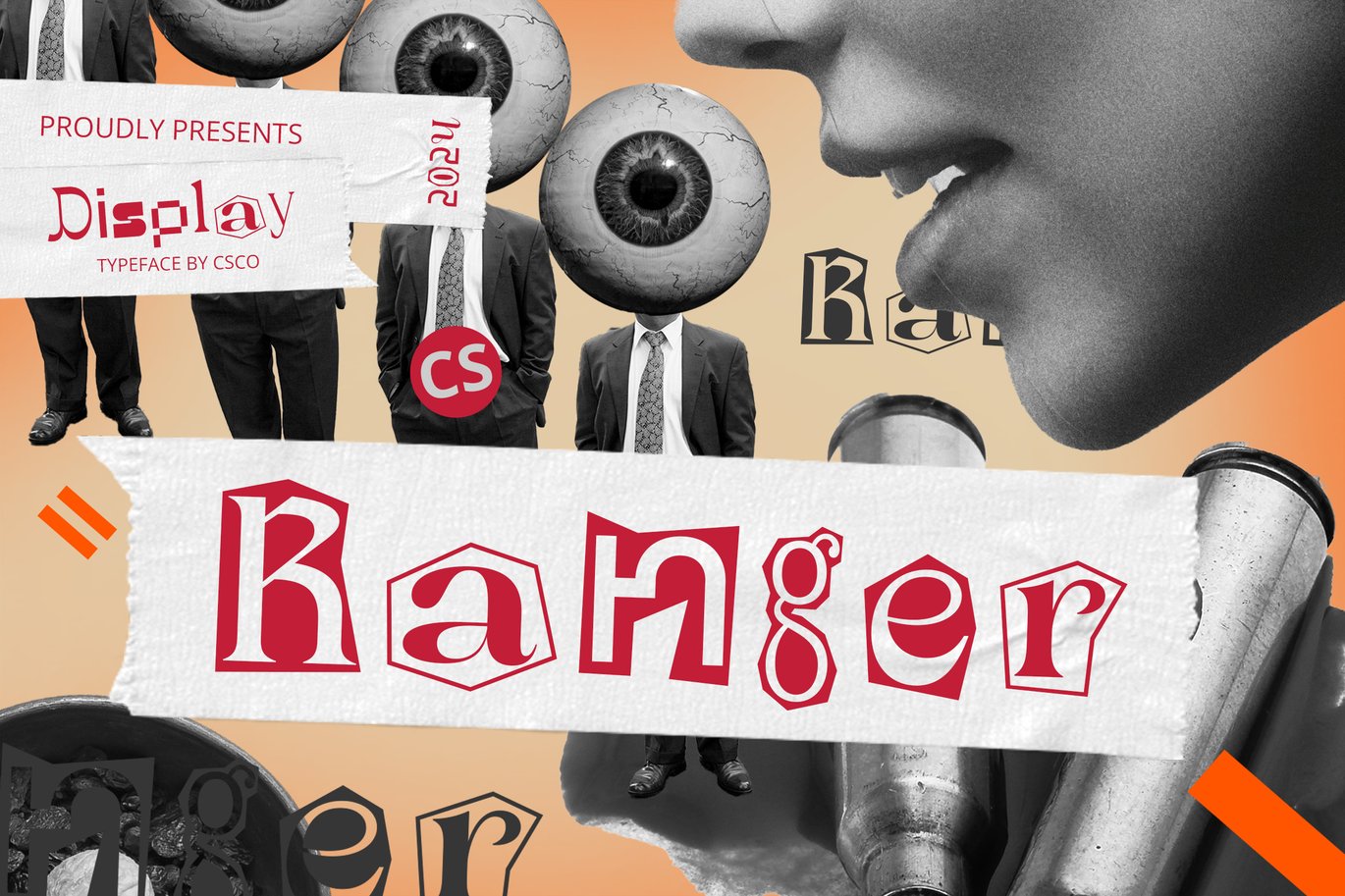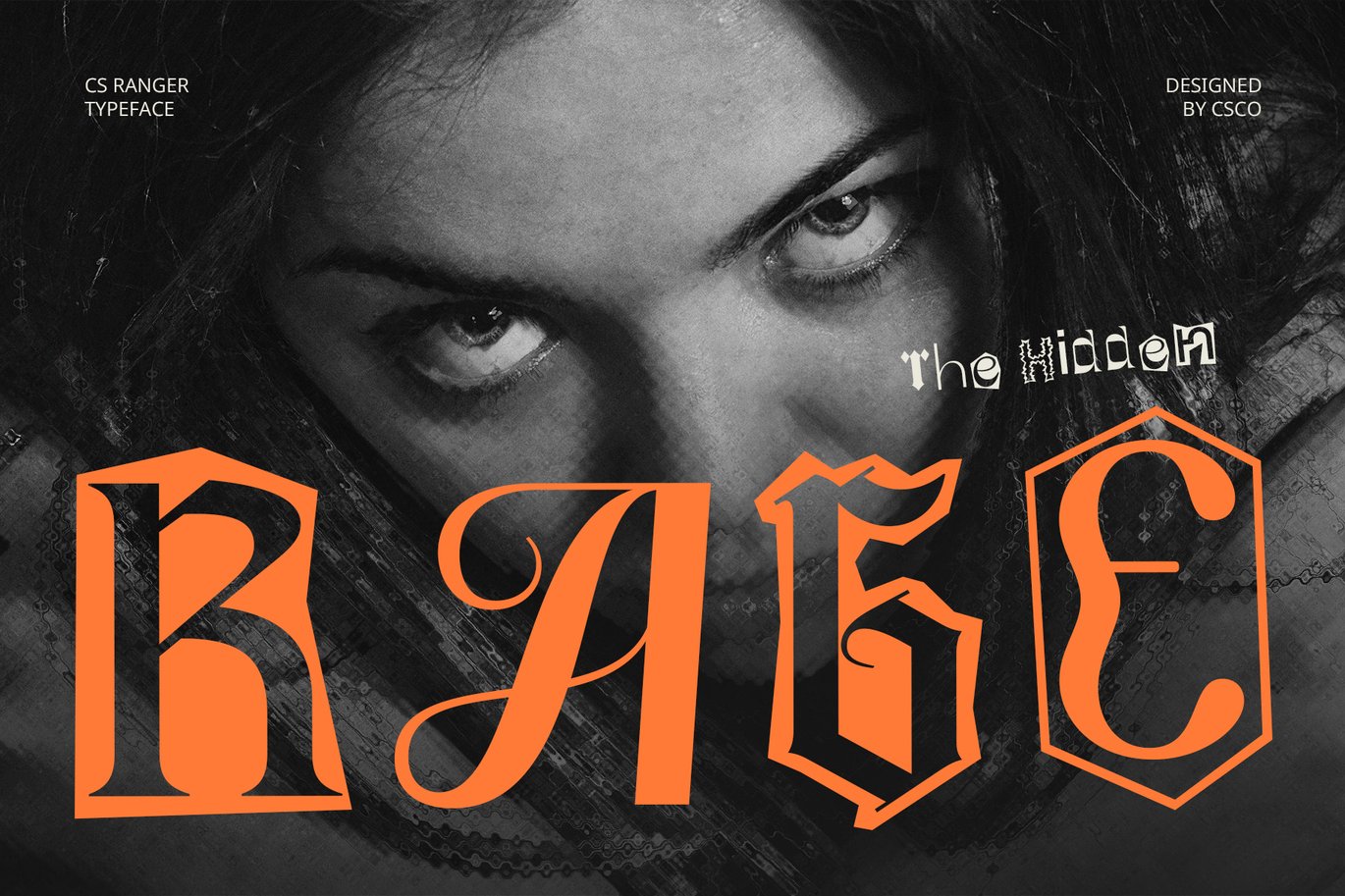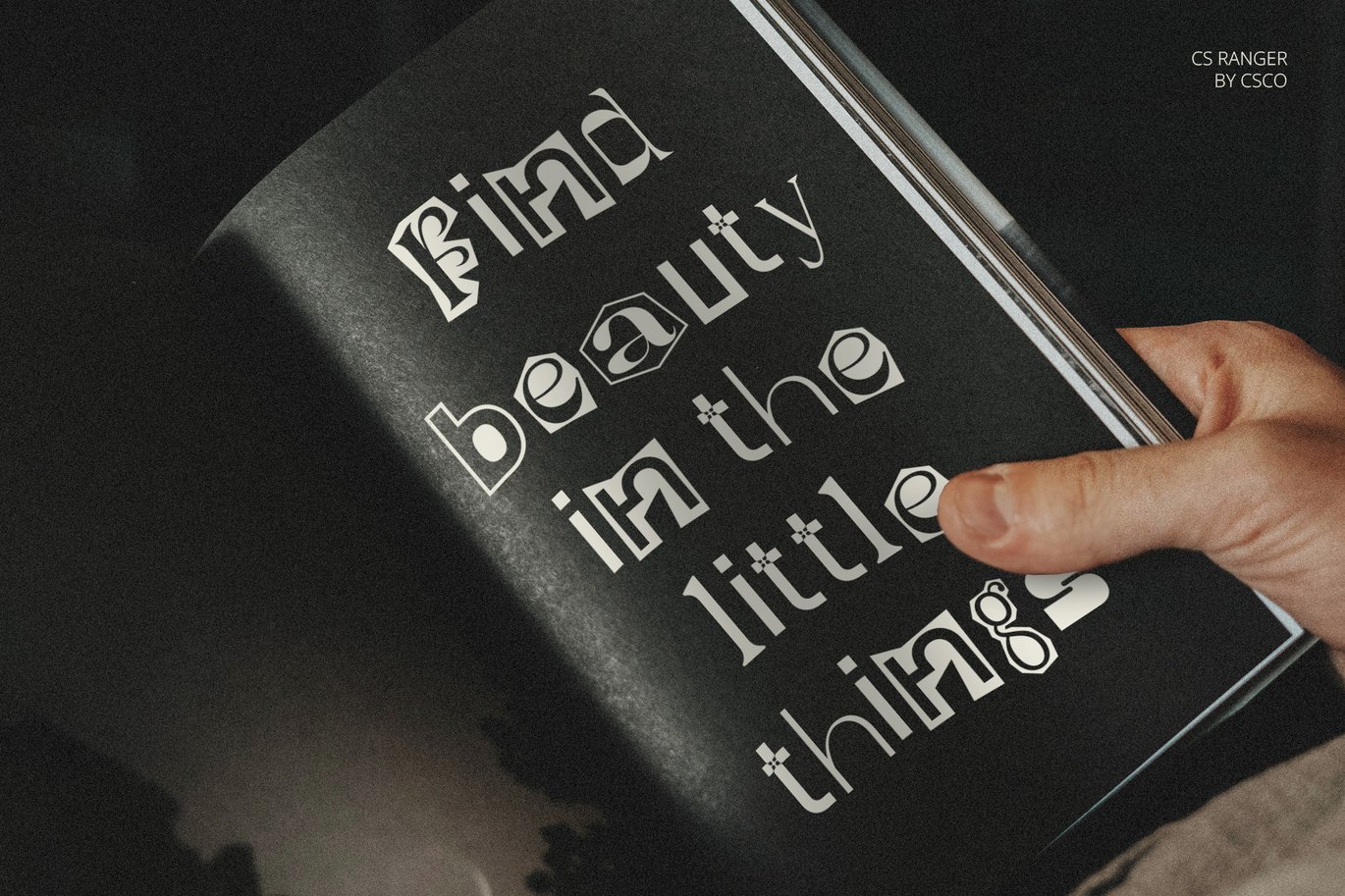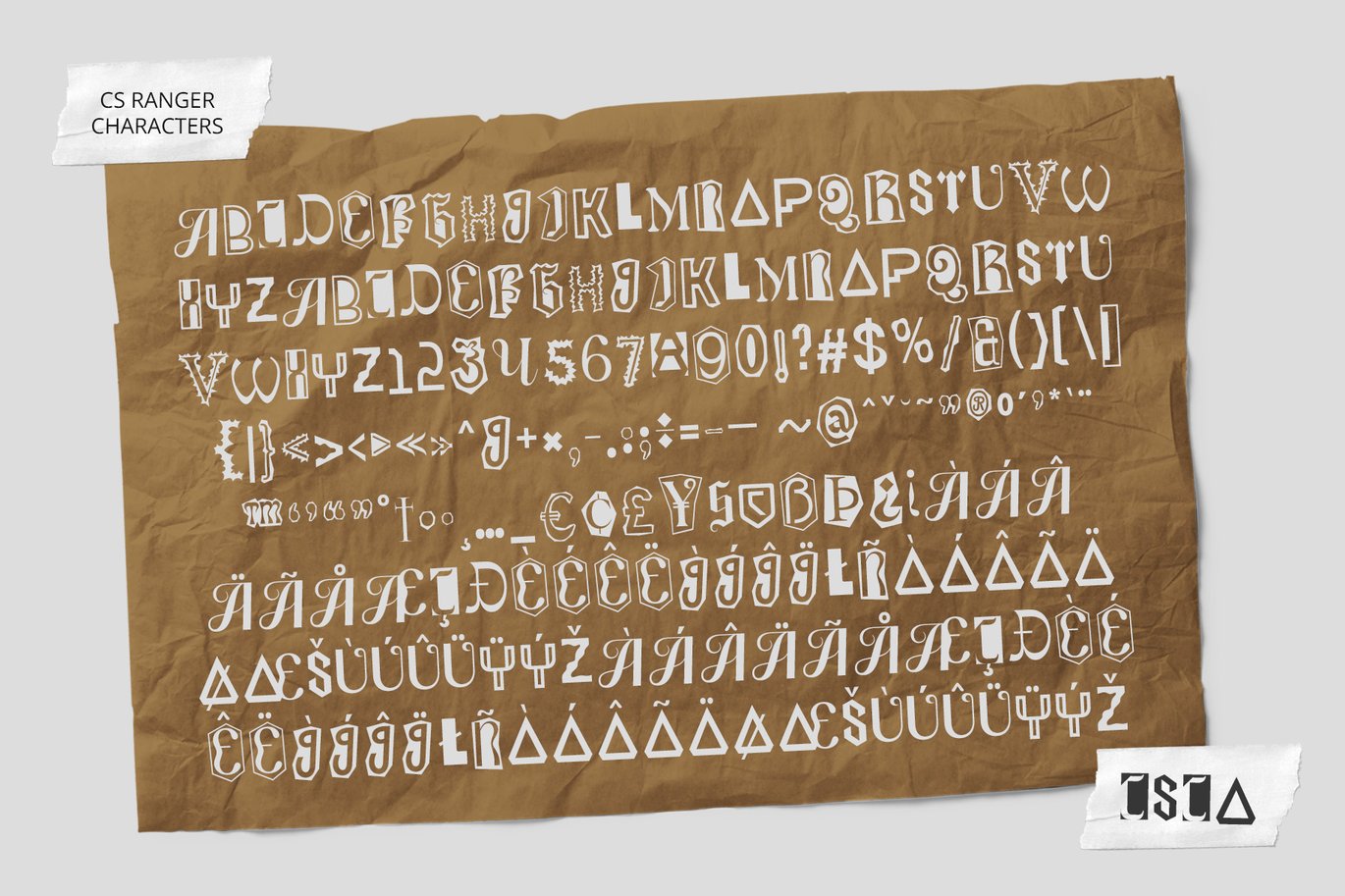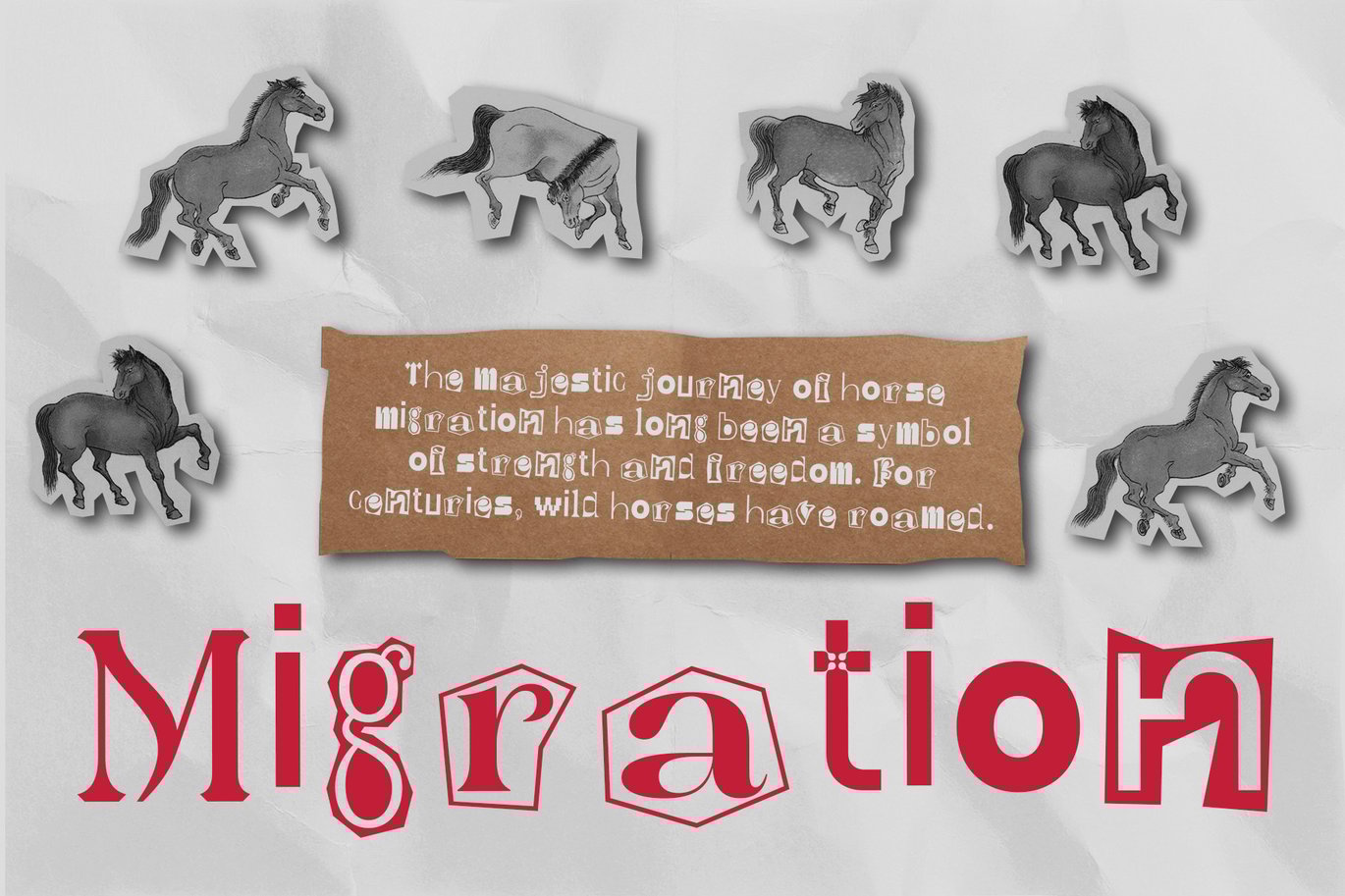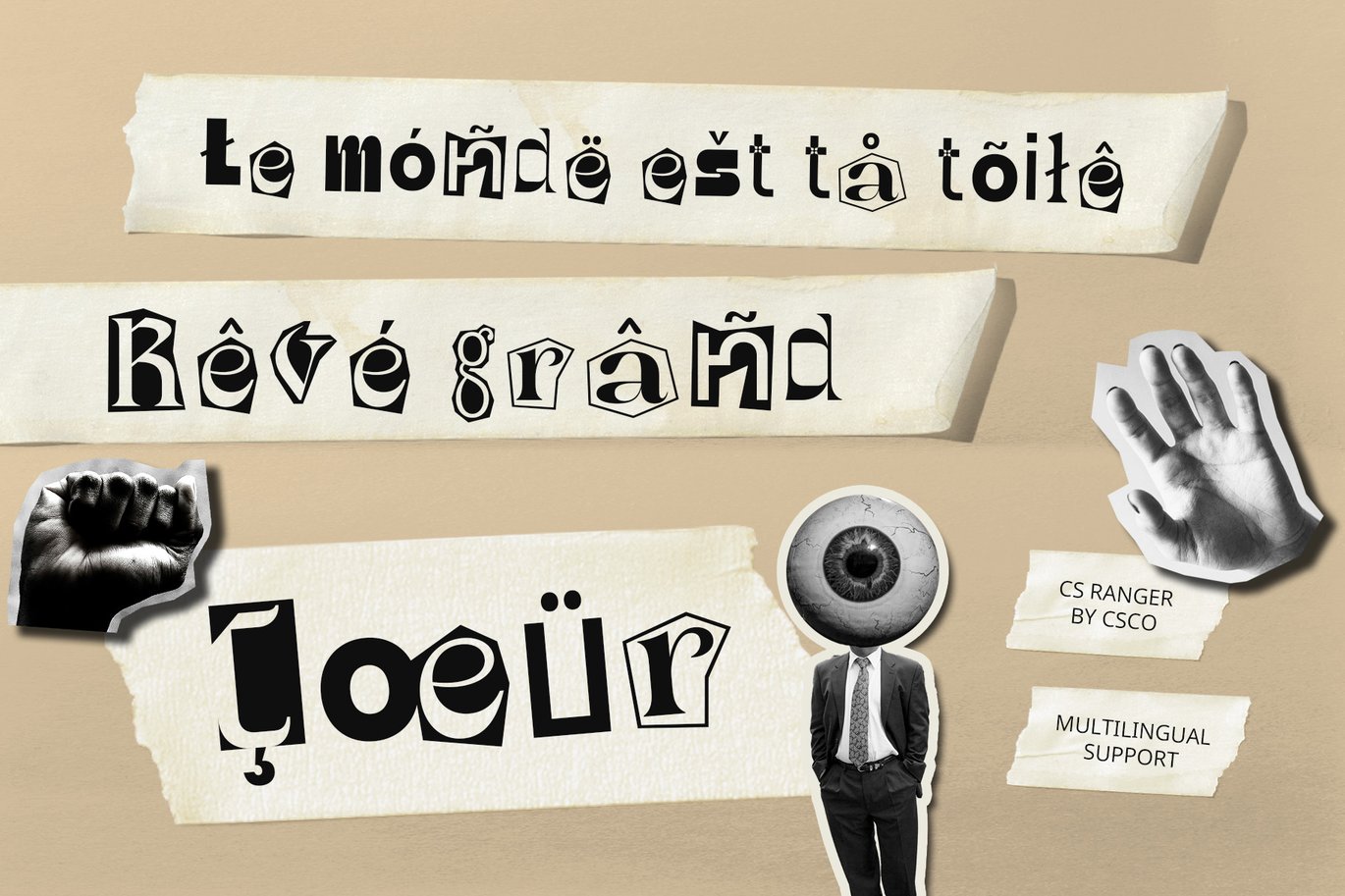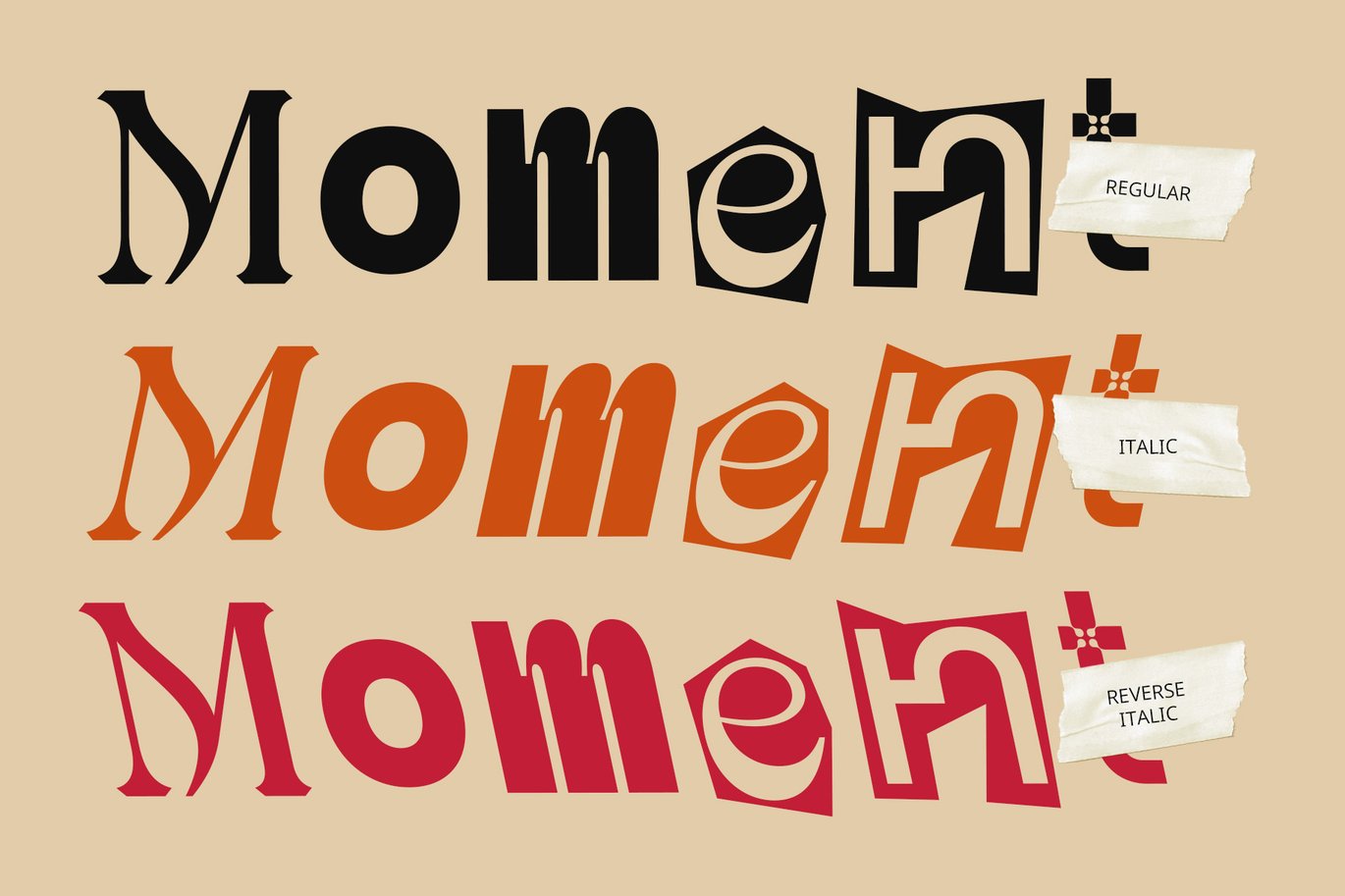
Ranger – Collage Font
CS Ranger – Collage Display Font
Dynamic Design with a Collage Aesthetic
CS Ranger is a unique display font inspired by the eclectic style of cut-out letters and ransom notes. Its irregular letterforms vary in style, size, and texture, creating a dynamic, layered effect reminiscent of collage art. Perfect for designs that need to stand out, CS Ranger delivers a quirky and playful vibe, ideal for creative and unconventional projects.
Funky, Unconventional, and Free-Spirited
This font embodies a funky and casual personality, making it a great choice for projects that aim to convey individuality and boldness. Its unconventional style adds energy and spontaneity to posters, album covers, event promotions, and experimental branding. CS Ranger thrives in contexts where creativity and uniqueness take center stage.
Perfect for Bold and Expressive Designs
The collage-inspired appearance of CS Ranger makes it a standout choice for artistic designs that break away from traditional typography. Its colorful and mismatched aesthetic enhances the visual appeal of materials that call for a bold statement. Whether used in branding, editorial layouts, or digital graphics, CS Ranger brings a free-spirited energy to any project.